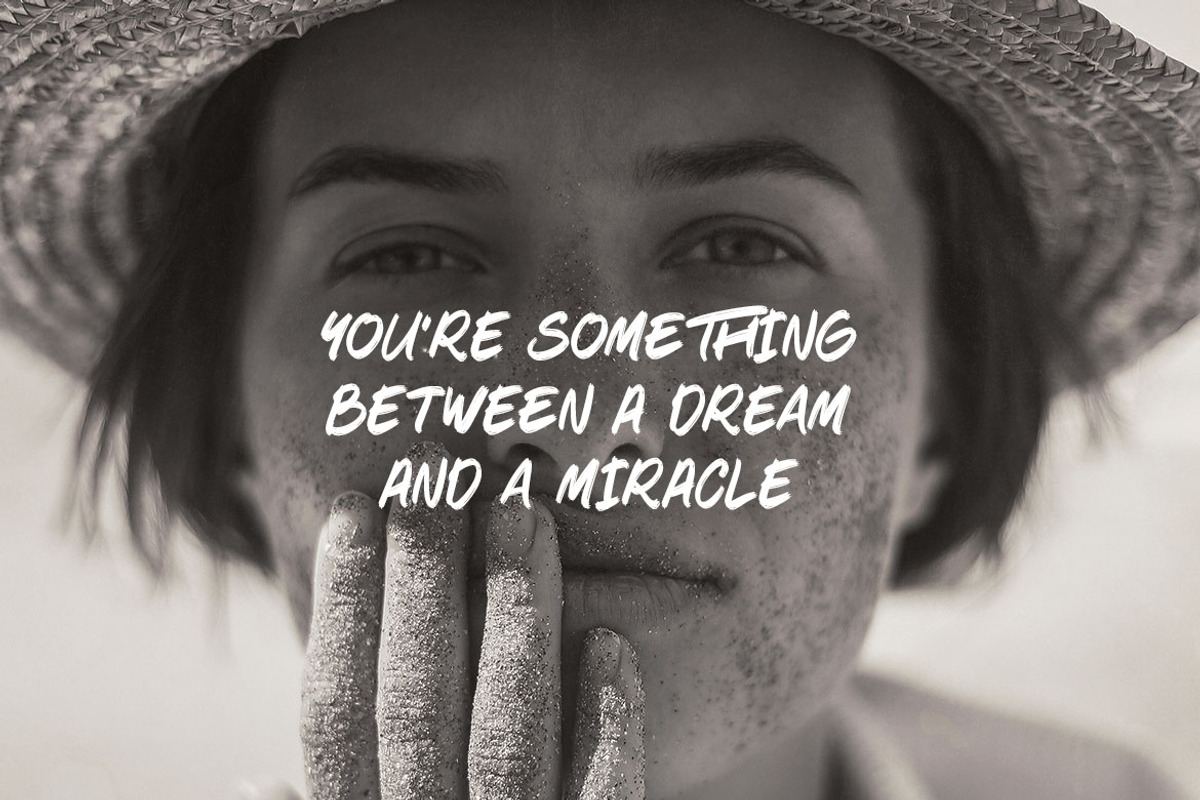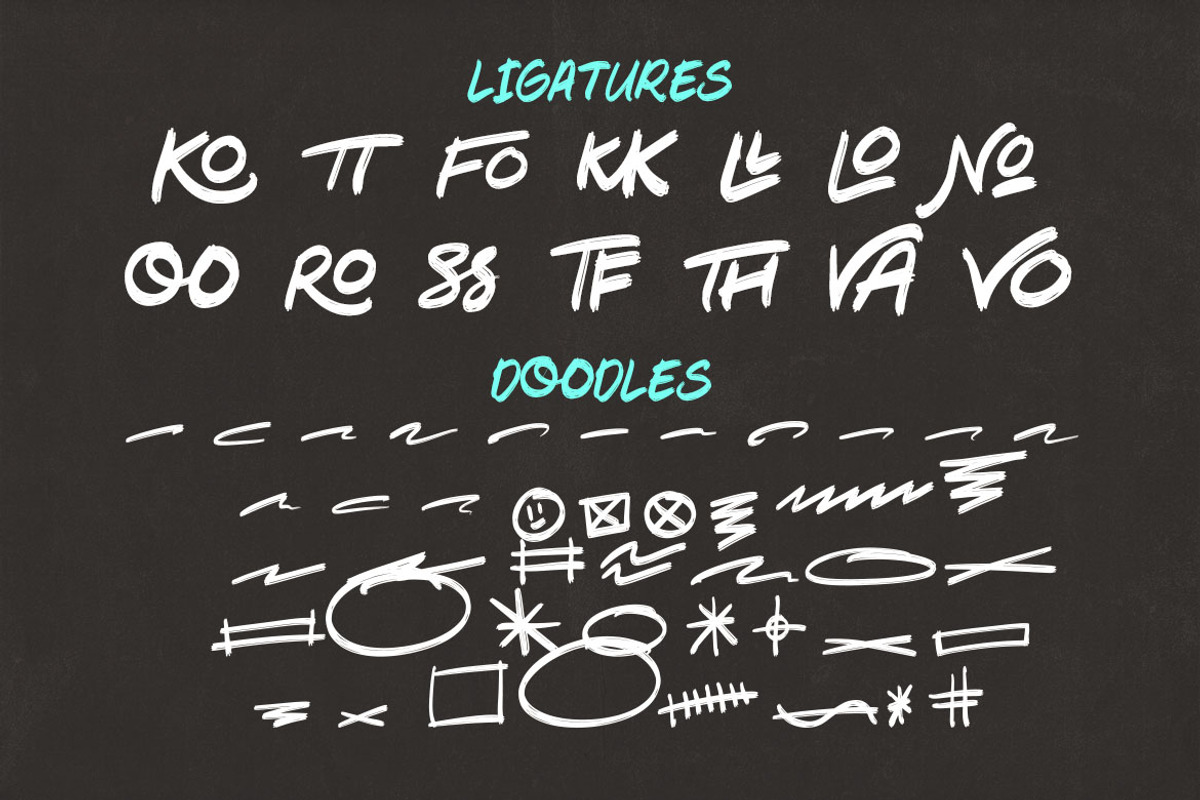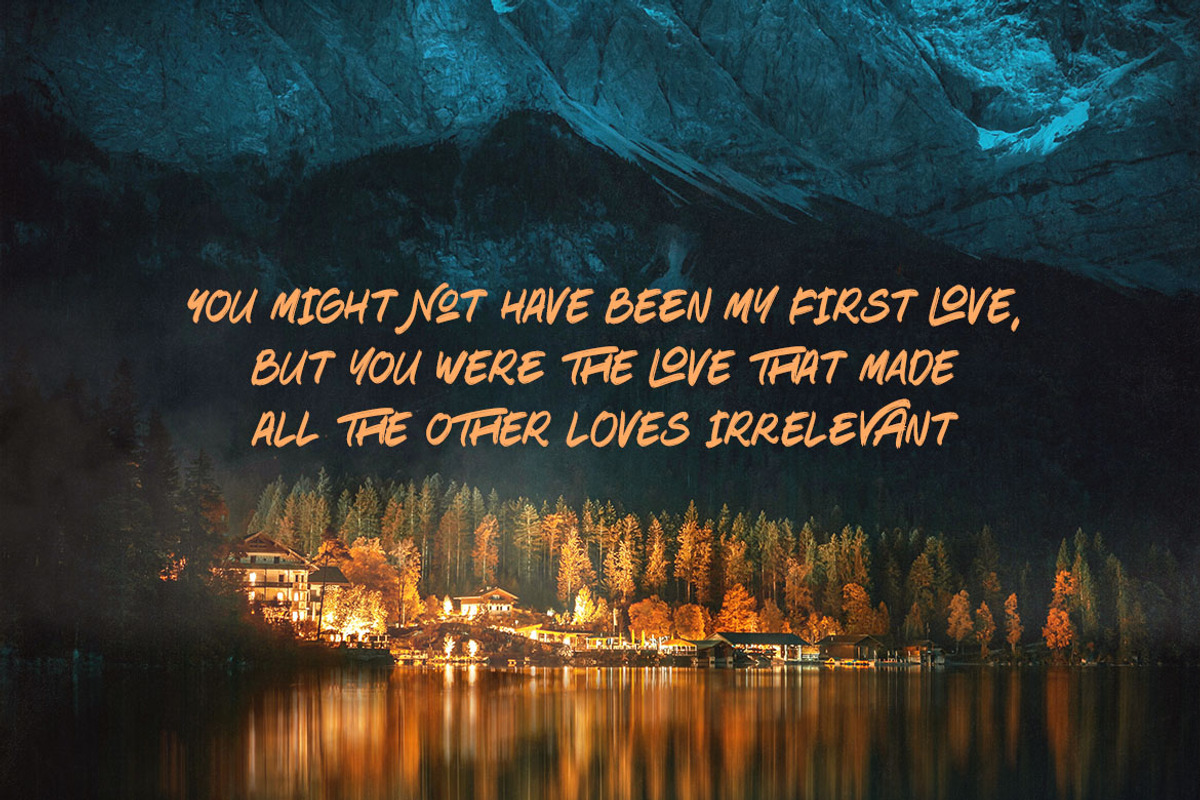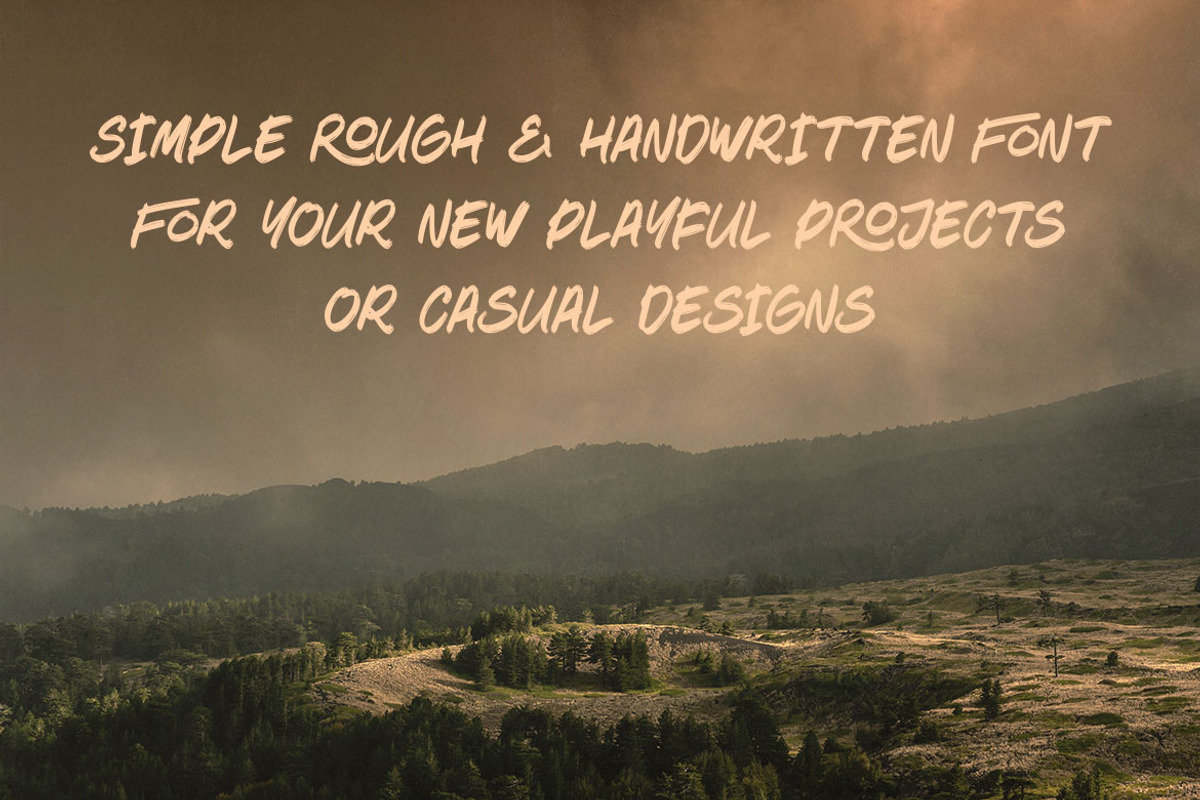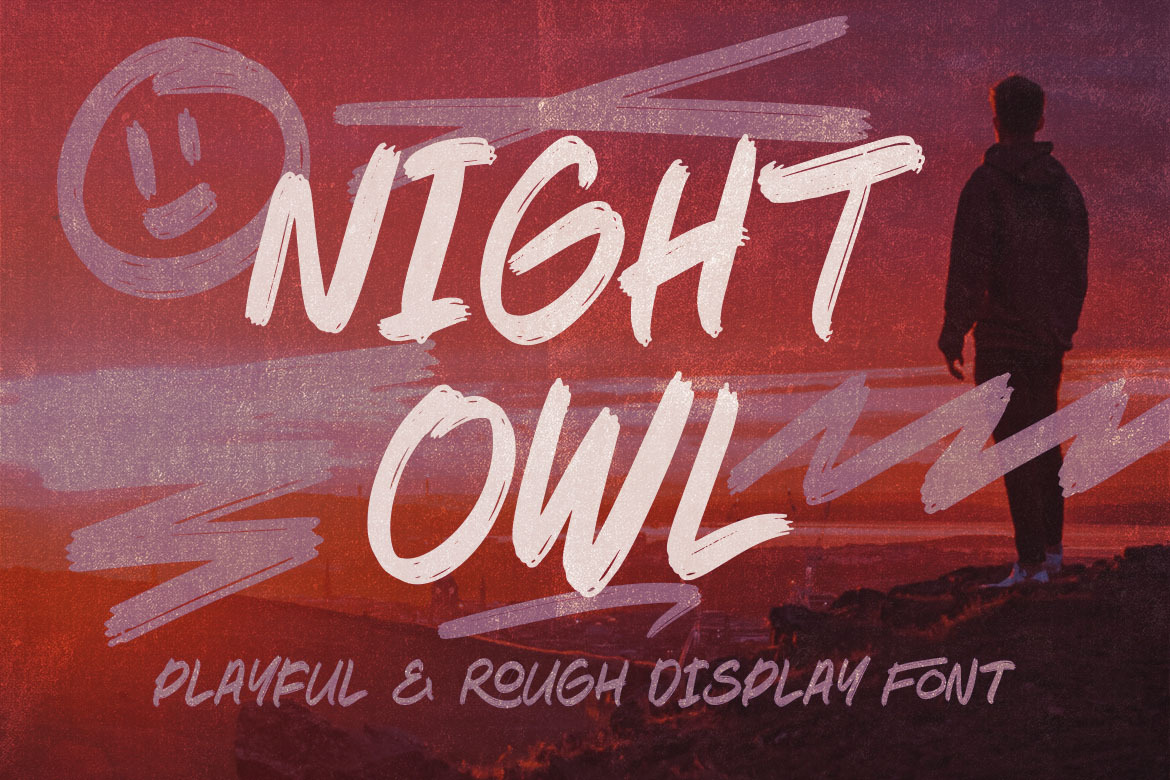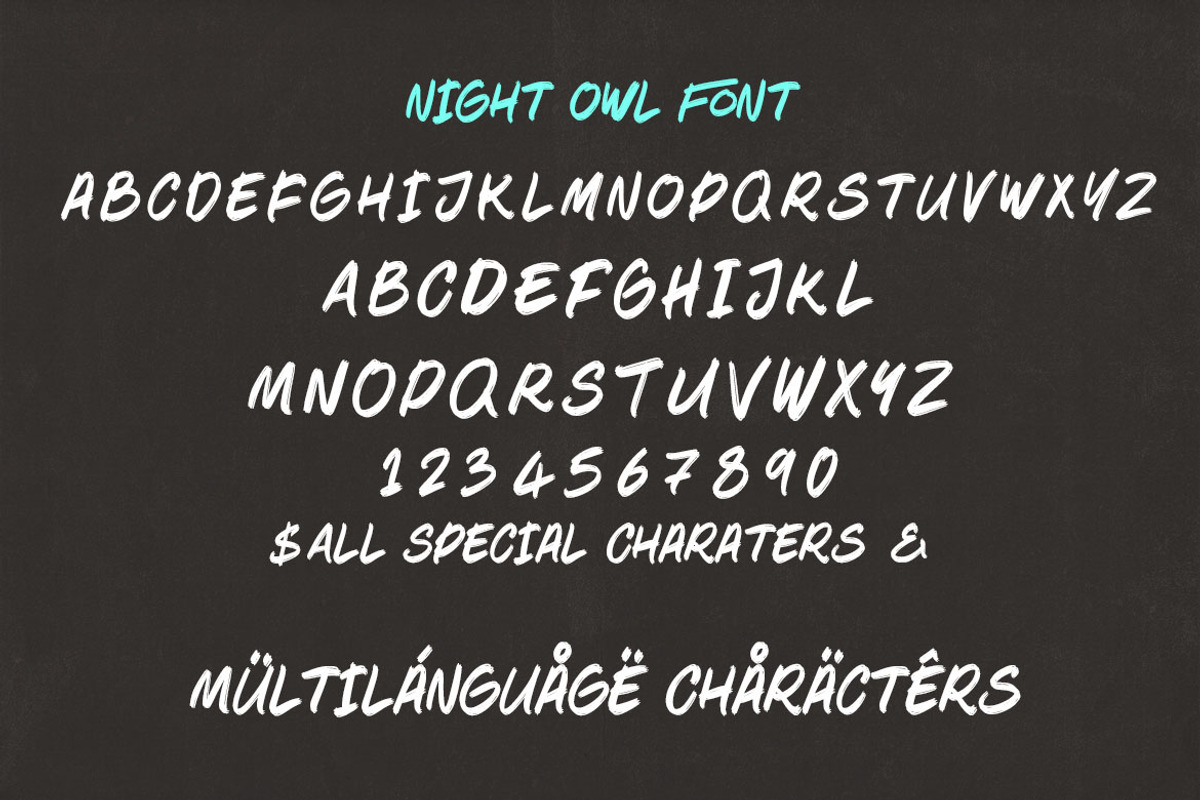
Night Owl Brush Font
Casual, simple, rough, handwritten and marker sans serif font for your new projects. With multi language support and casual artistic or street style ;)
- multilingual support
- CAPS & CAPS alternates (small letters) + numbers & special characters
- ligatures & doodle shapes